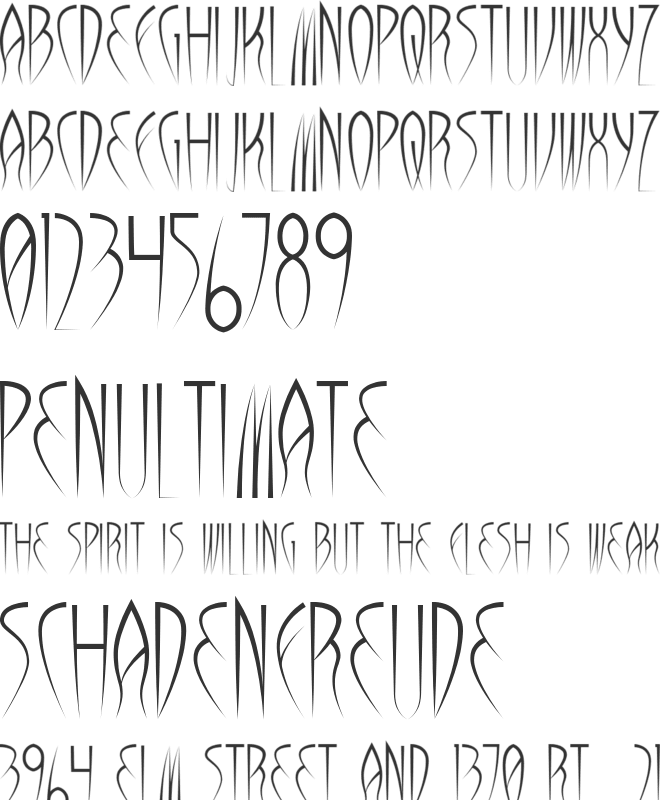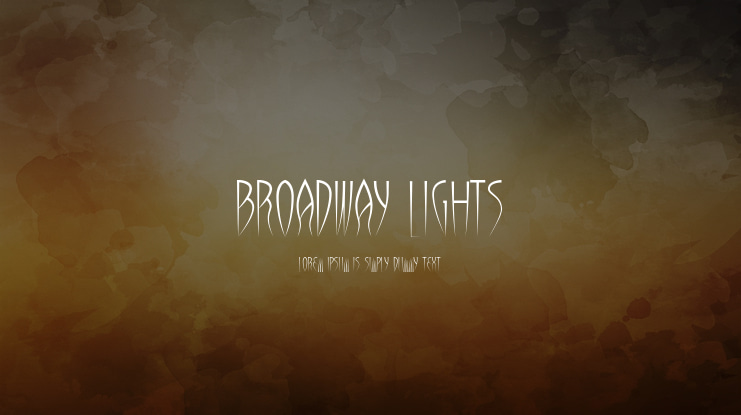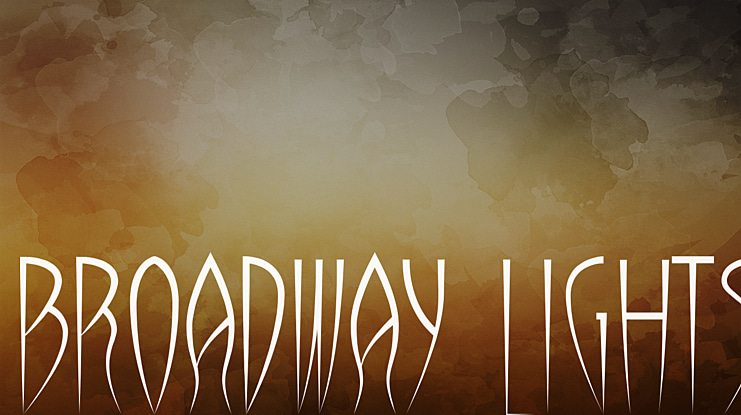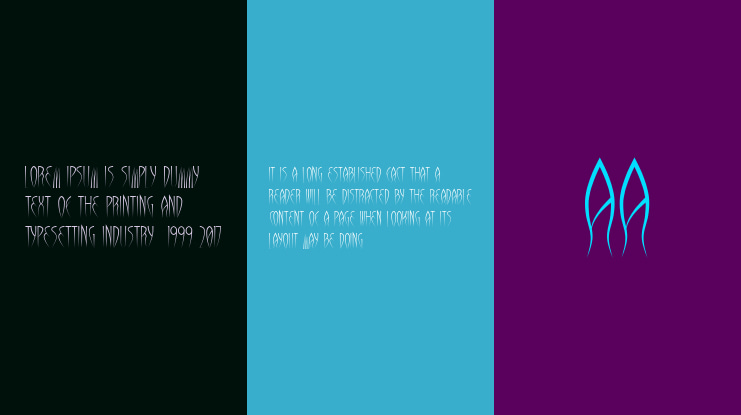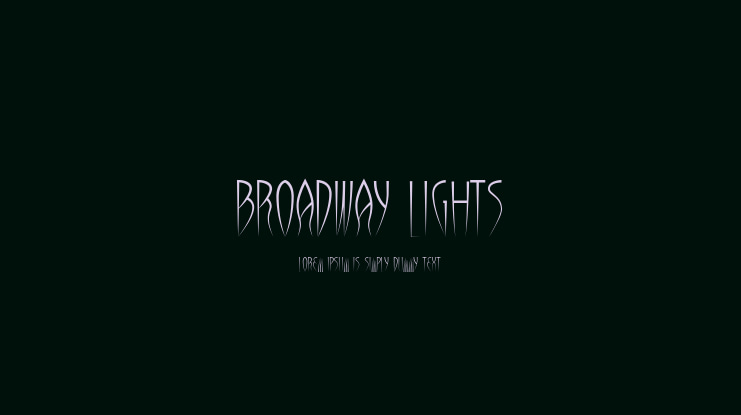
Broadway lights Font
...a bit retro...;P
UPDATE:
..tetters " M " and " W " are now more sharper and fit better...
EDIT:
...kerning was corrected and some compatibility issues were solved...